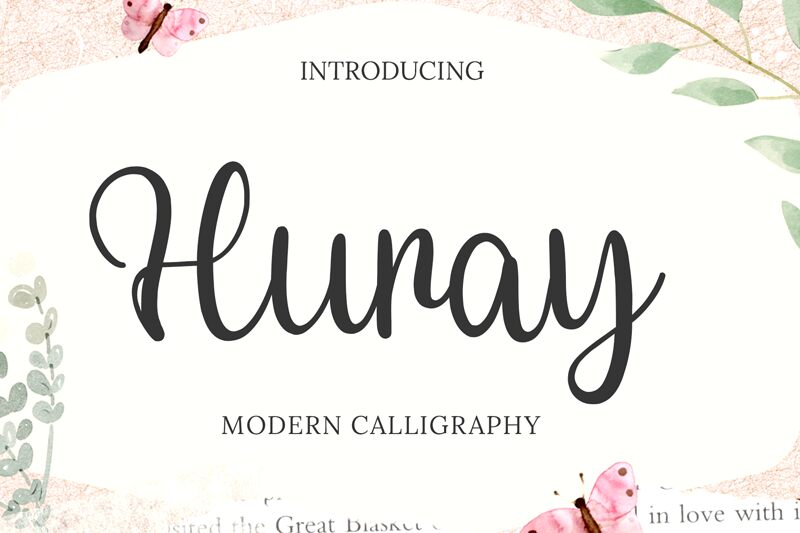
Huray, a delightful handwritten font by Bearytype, brings an air of whimsy and elegance to any project. With its semi-light weight, this font adds a touch of sophistication without overpowering the composition. Huray is perfect for creating enchanting wedding invitations, captivating logos for artisanal brands, or even crafting personalized greeting cards that evoke warmth and sincerity. Its graceful curves and unique character make it an ideal choice for designs seeking a blend of playfulness and refinement. Let Huray's charm elevate your next creative endeavor and leave a lasting impression on your audience.